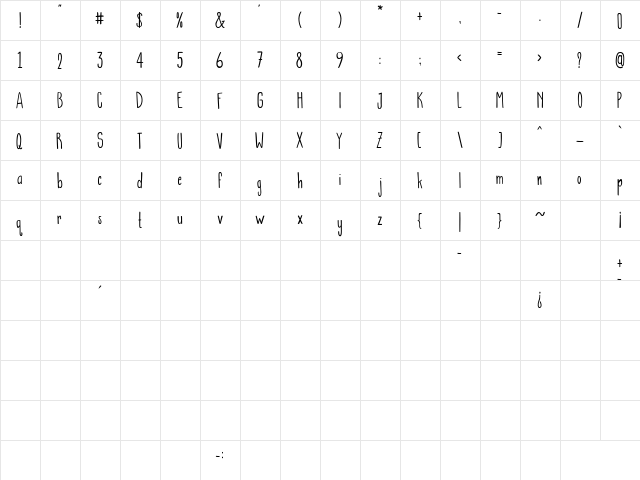
AURELLY Regular
Design Context for AURELLY Typeface
AURELLY is a composed and adaptable typeface that performs quietly and consistently across a wide range of design contexts.